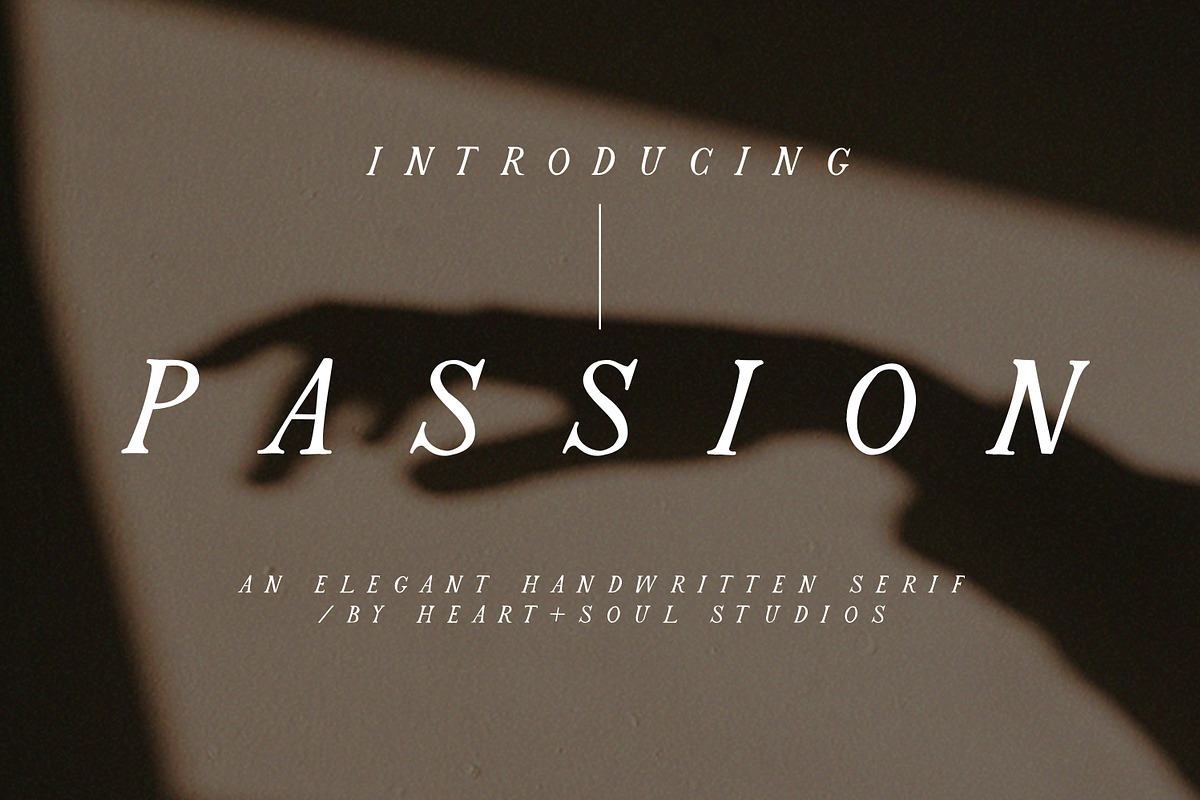
Passion | Romantic Serif Free Download
Passion | Romantic Serif Font Free Download
Please note, to use this font for commercial purposes, you must purchase the full version. Passion is a sophisticated and romantic serif font designed to bring elegance and charm to your designs. With its refined letterforms and timeless appeal, this font is perfect for creating wedding invitations, logos, branding, and other romantic projects. Whether you're designing for a luxury brand, a special event, or a personal project, Passion adds a touch of elegance and beauty to your work. Test it out and enjoy free download access for personal use. Experience the graceful style of Passion | Romantic Serif Font Free Download before purchasing the commercial license. Add a romantic, elegant touch to your designs with Passion.